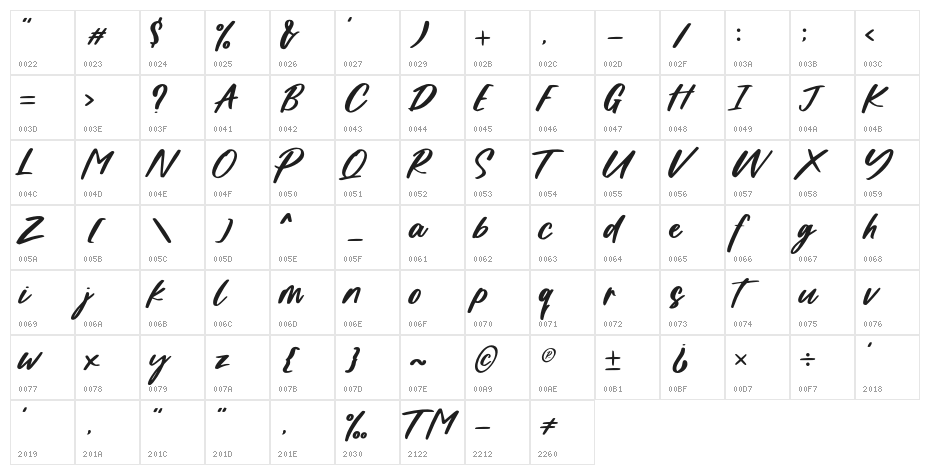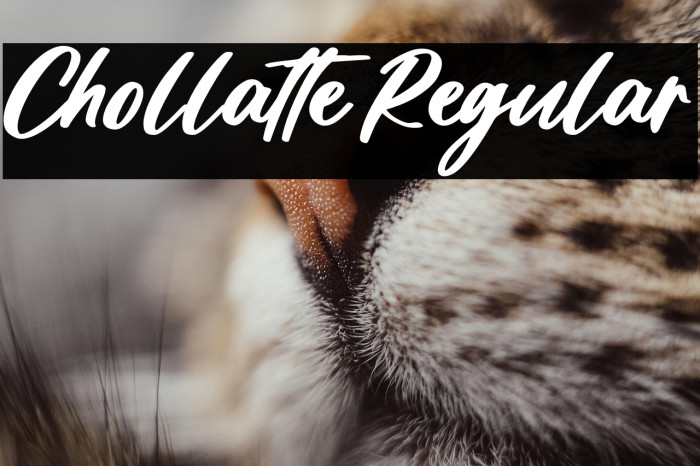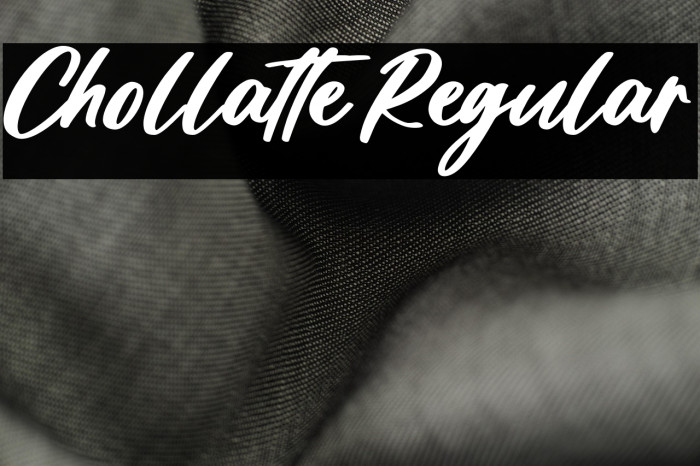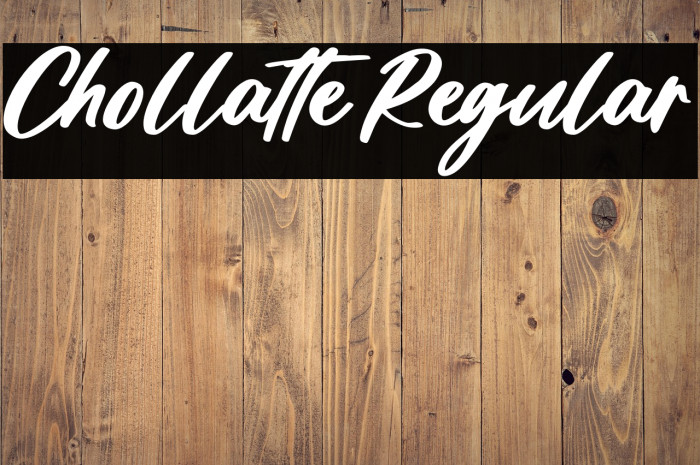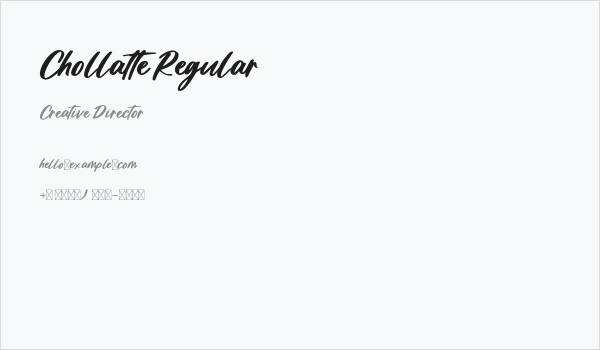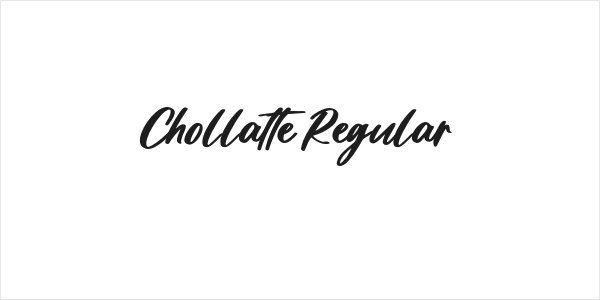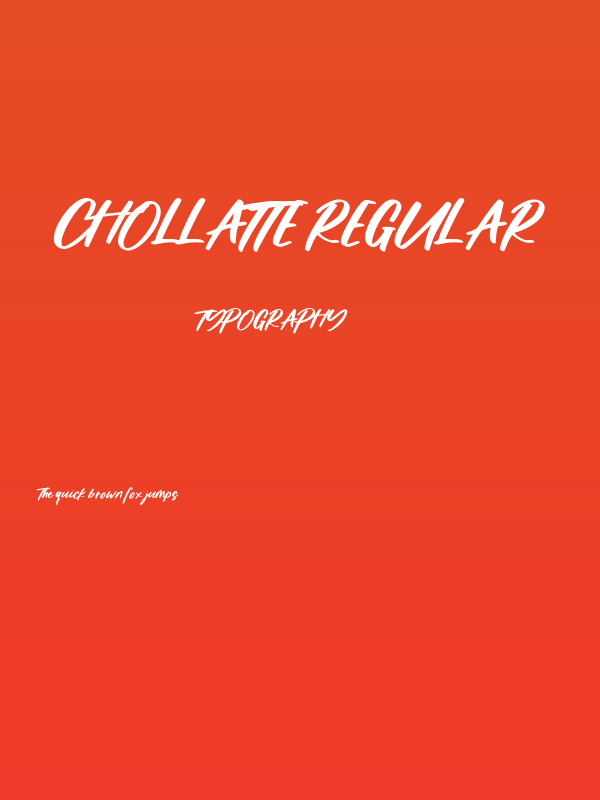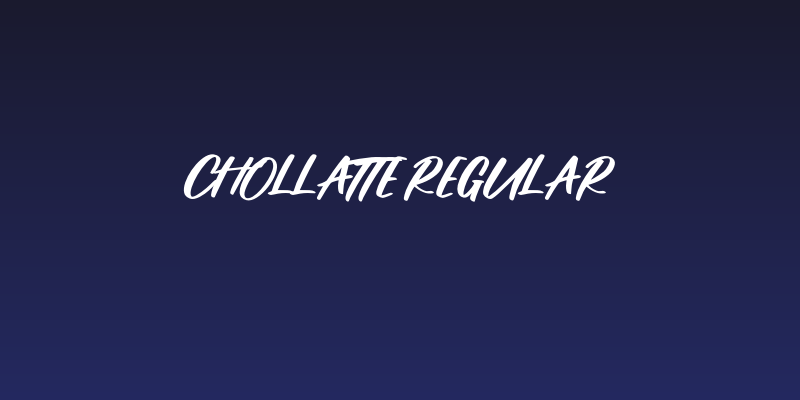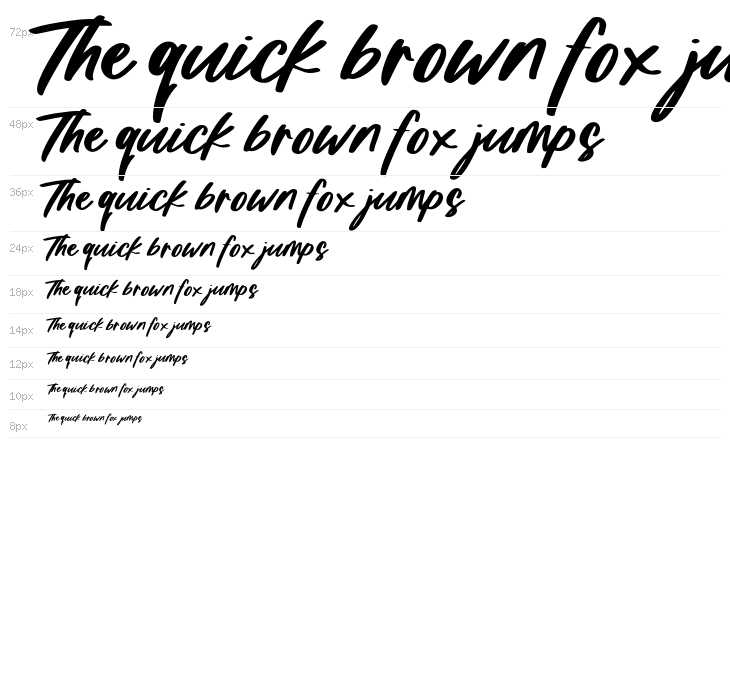
Chollatte Regular Font
Chollatte Regular Description
This font exudes a dynamic and energetic feel with its bold, flowing script style. The letters are crafted with a sense of movement, characterized by smooth curves and sharp angles that create a sense of rhythm and fluidity. The uppercase letters are particularly striking, with a dramatic flair that commands attention. The lowercase letters maintain the same level of expressiveness, ensuring consistency across the typeface. The font's overall appearance is both elegant and modern, making it suitable for a variety of creative projects. The special characters and numerals are designed to complement the letters, maintaining the same stylistic elements. This font is ideal for projects that require a touch of sophistication and creativity.